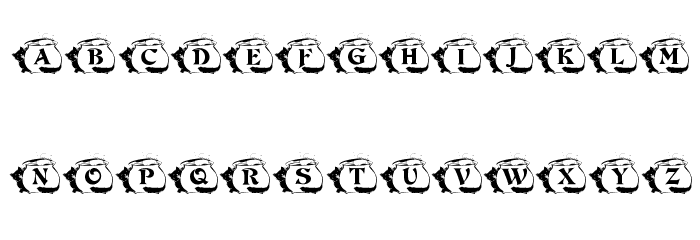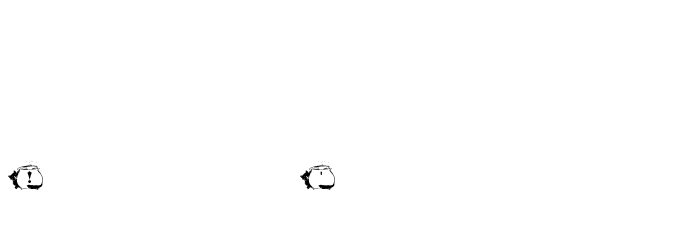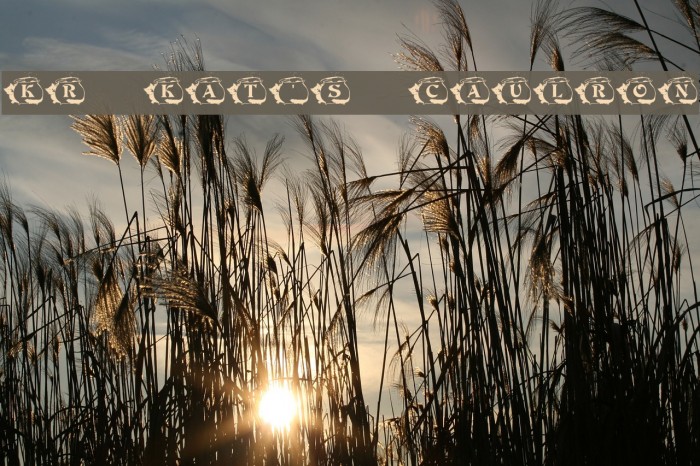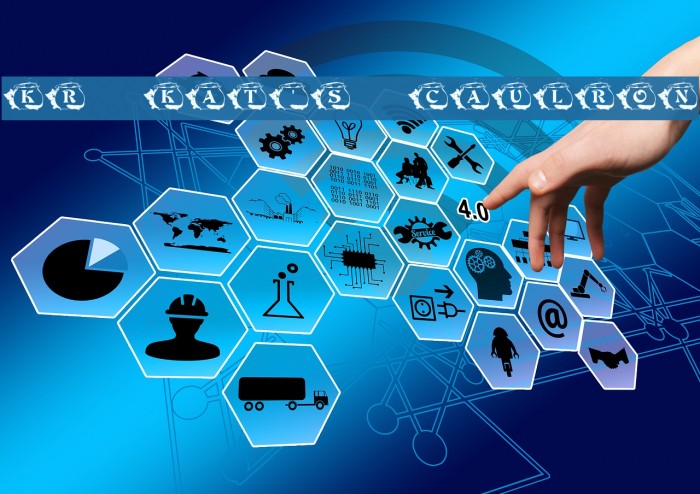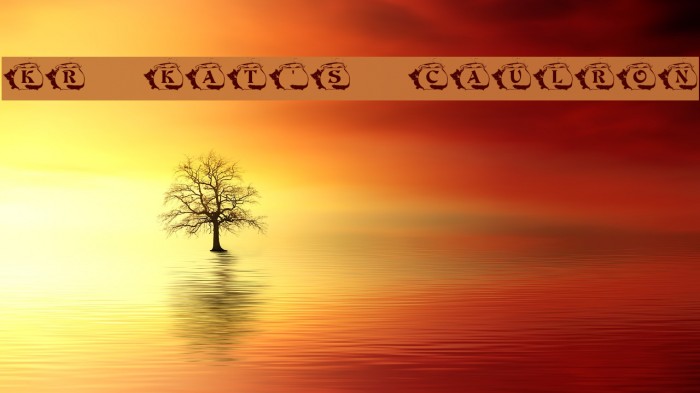
KR Kat's Caulron Font
This font features a unique and playful design where each character is encapsulated within a cauldron-like shape. The letters are bold and uppercase, with a whimsical touch that adds a sense of fun and creativity. The design is consistent across the alphabet, maintaining a uniform appearance that is both eye-catching and distinctive. The cauldron motif gives it a magical or fantasy-themed aesthetic, making it ideal for projects that require a touch of enchantment or mystery. The boldness of the letters ensures readability while the decorative elements provide a visual interest that sets it apart from more traditional fonts.
A whimsical font with bold letters encased in cauldron shapes, perfect for fantasy themes.
- Font: KR Kat's Caulron
- Proposed Projects: Ideal for Halloween-themed projects, fantasy book covers, magical event invitations, or any creative design requiring a mystical touch.
- Use Case: Headlines, Logos, Themed Invitations